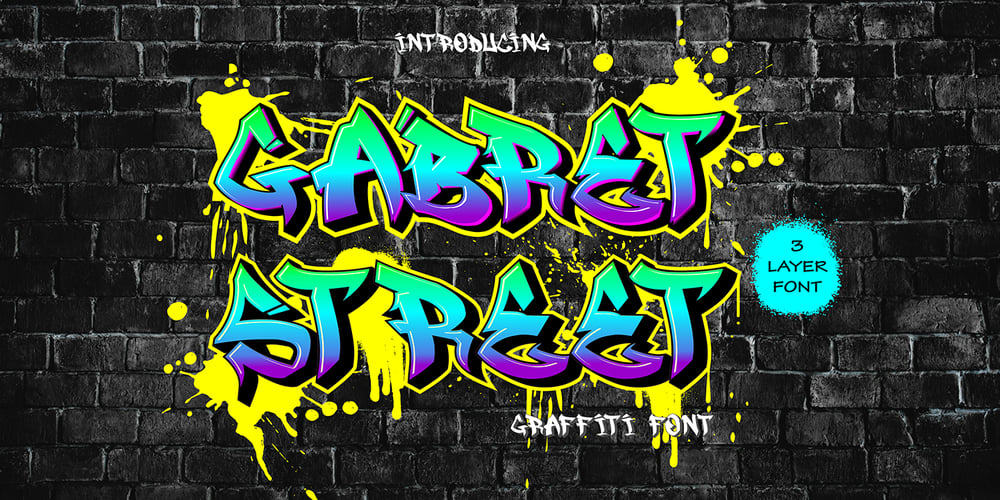
Gabret Street Layered Font Family was designed by Sipanji and published by Sipanji21. Gabret Street Layered contains 3 styles and family package options. “Gabret Street” is an urban graffiti font characterized by sharp edges and a bold look. Ideal for music posters, apparel designs, shirts, and streetwear, this font brings a touch of edginess to your projects. The unique style of “Gabret Street” makes it the perfect choice for death metal or urban graffiti themes. Whether you want to create a strong and powerful statement or simply add a touch of attitude to your designs, “Gabret Street” is the font for you.